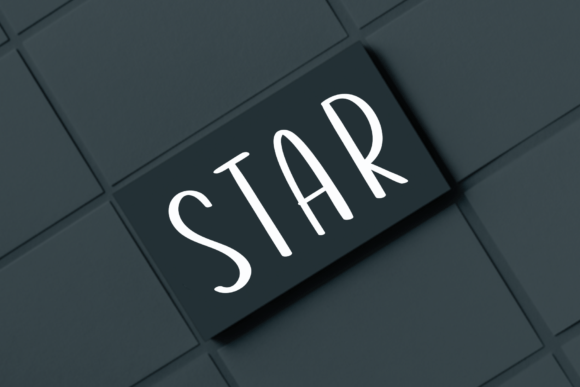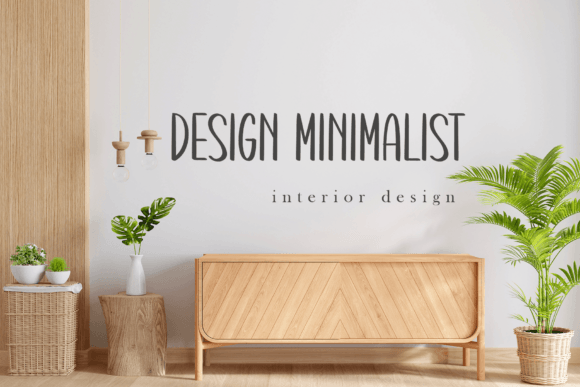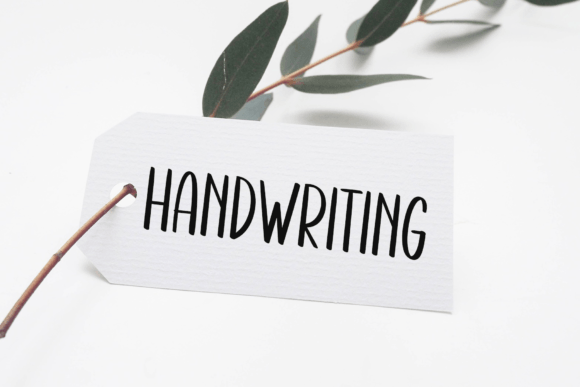
Introduction to Hello Beautiful Angel Font
Have you ever stared at a blank page, struggling to find the perfect words to bring your creative project to life? We’ve all been there. The blank page stares back at you, taunting you with its emptiness. But what if you could add a touch of elegance and sophistication to your work? That’s where the Hello Beautiful Angel Font comes in – a stunning, handwritten font that will elevate your designs and leave a lasting impression.
| 👤 Author | Creatype Designer |
Whether you’re a graphic designer, social media manager, or simply a creative soul, the Hello Beautiful Angel Font is an invaluable design resource that will help you take your work to the next level. With its high-quality, transparent background, you can use it for a wide range of applications, from logo design to social media posts and book titles.
Key Features of Hello Beautiful Angel Font
- Unique, hand-drawn design perfect for creative projects requiring a touch of elegance and sophistication.
- Perfect for use in various creative projects, such as wedding invitations, greeting cards, and digital artwork.
Honest Review: Hello Beautiful Angel Font
I recently stumbled upon the Hello Beautiful Angel Font while searching for a free download to use in my creative project. As a designer, I’m always on the lookout for high-quality design resources that can elevate my work.
Here’s what I like about this font: ✨
- Unique aesthetic: The font has a beautiful, whimsical feel to it that’s perfect for projects that need a touch of elegance.
- High-quality design: The font is well-crafted and has a professional finish, making it suitable for both personal and commercial use.
However, I do have a few reservations: ⚠️
- Limited font family: The font only comes in a single style, which might limit its versatility in certain design projects.
- No additional font weights: This could make it challenging to create a consistent look and feel across different design elements.
Overall, I’m impressed with the Hello Beautiful Angel Font and would recommend it to designers looking for a high-quality, free download for their creative project. While it may have some limitations, its unique aesthetic and transparent background make it a valuable addition to any design resource collection.
The Hello Beautiful Angel Font is perfect for a variety of creative projects, including invitations, posters, and social media graphics. It’s also great for use in branding and marketing materials, such as business cards and brochures.